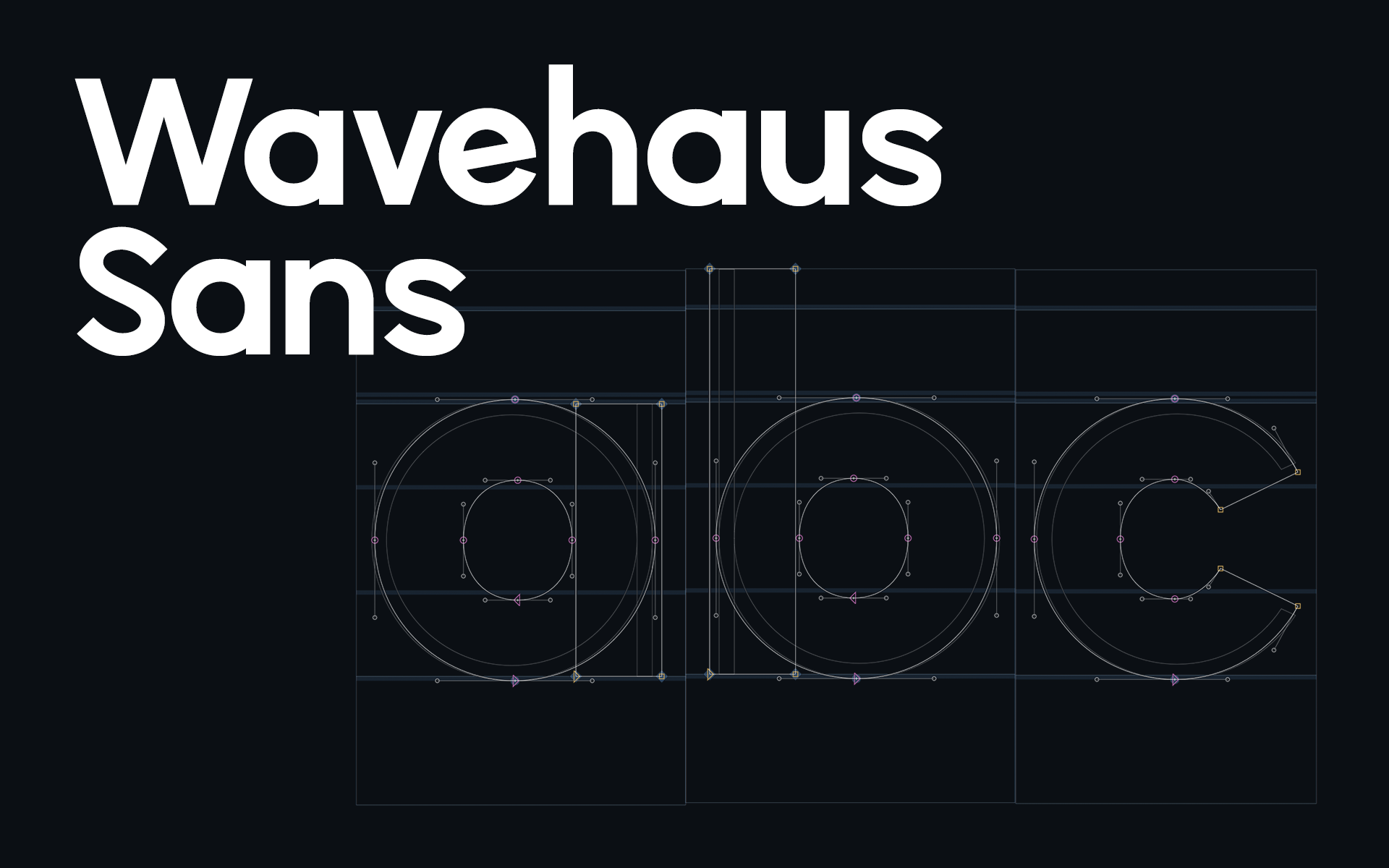
Wavehaus Sans Typeface
Geometric Sans Serif font family with 6 weights including a thin, light, book, semibold, bold and extra bold.
Includes uppercase and lowercase characters, numerals and most common other characters.